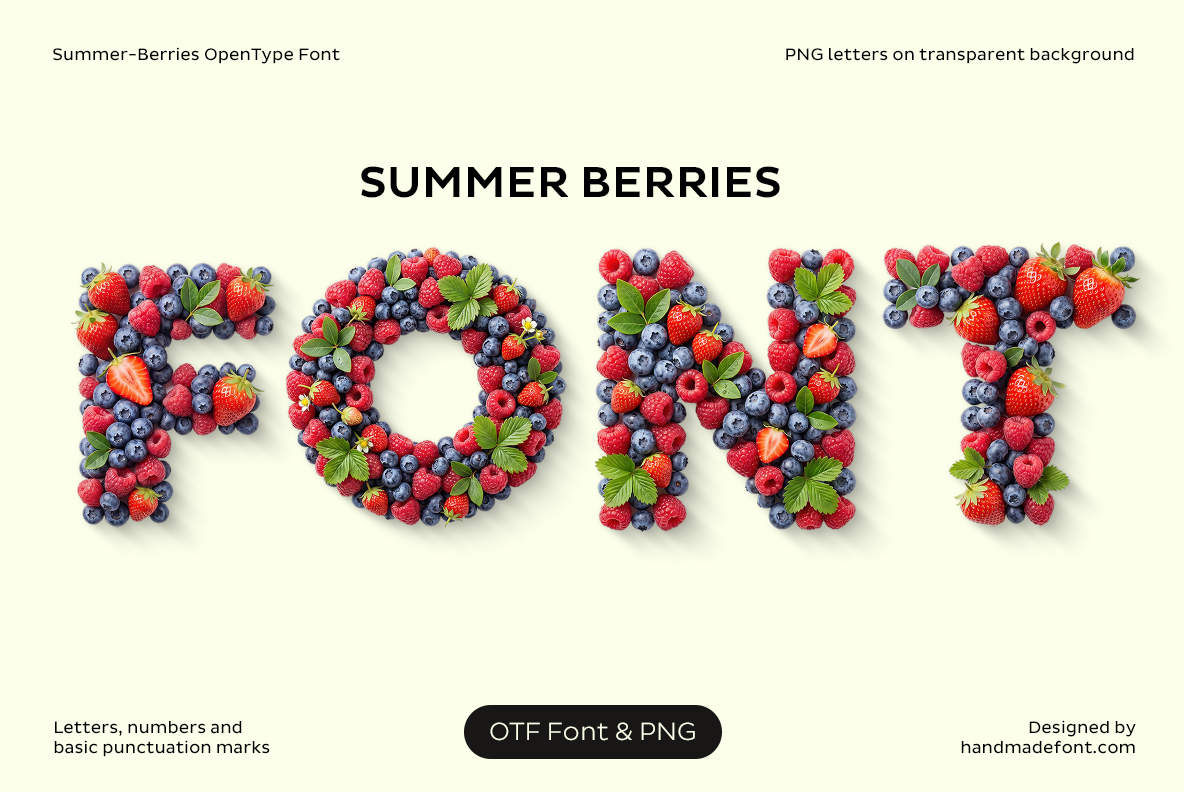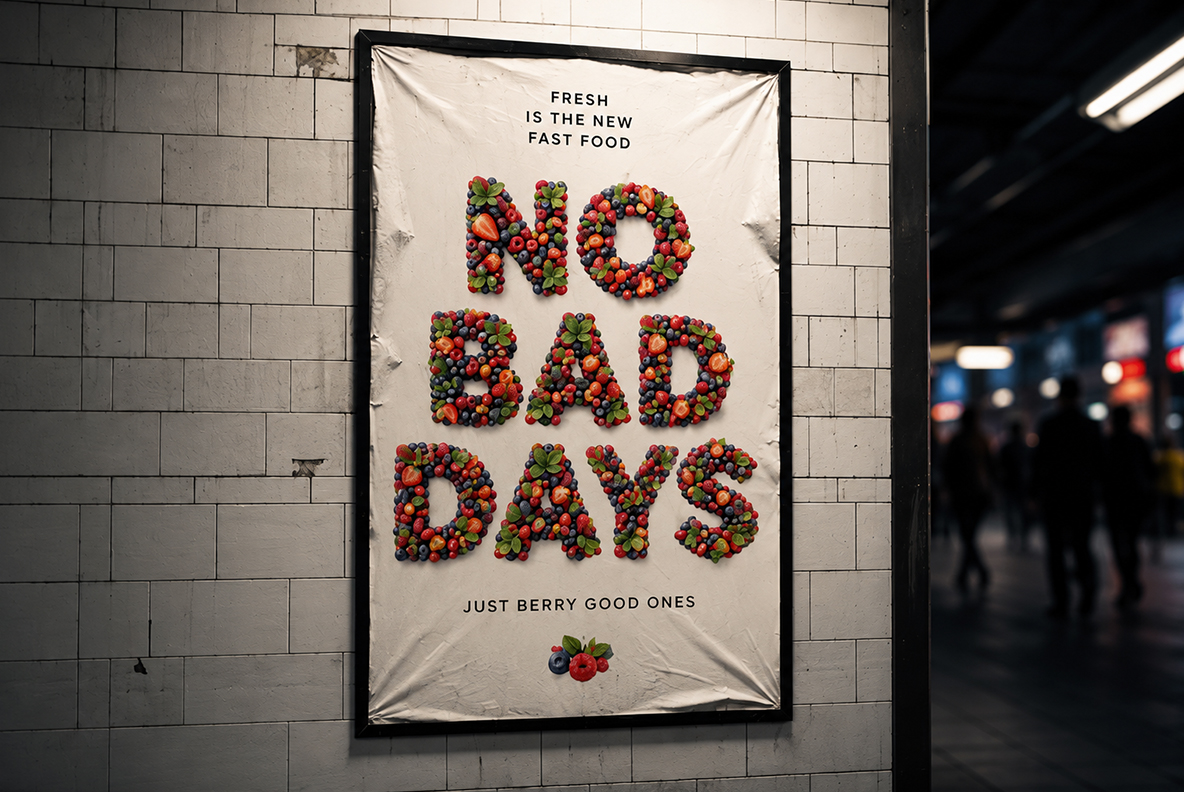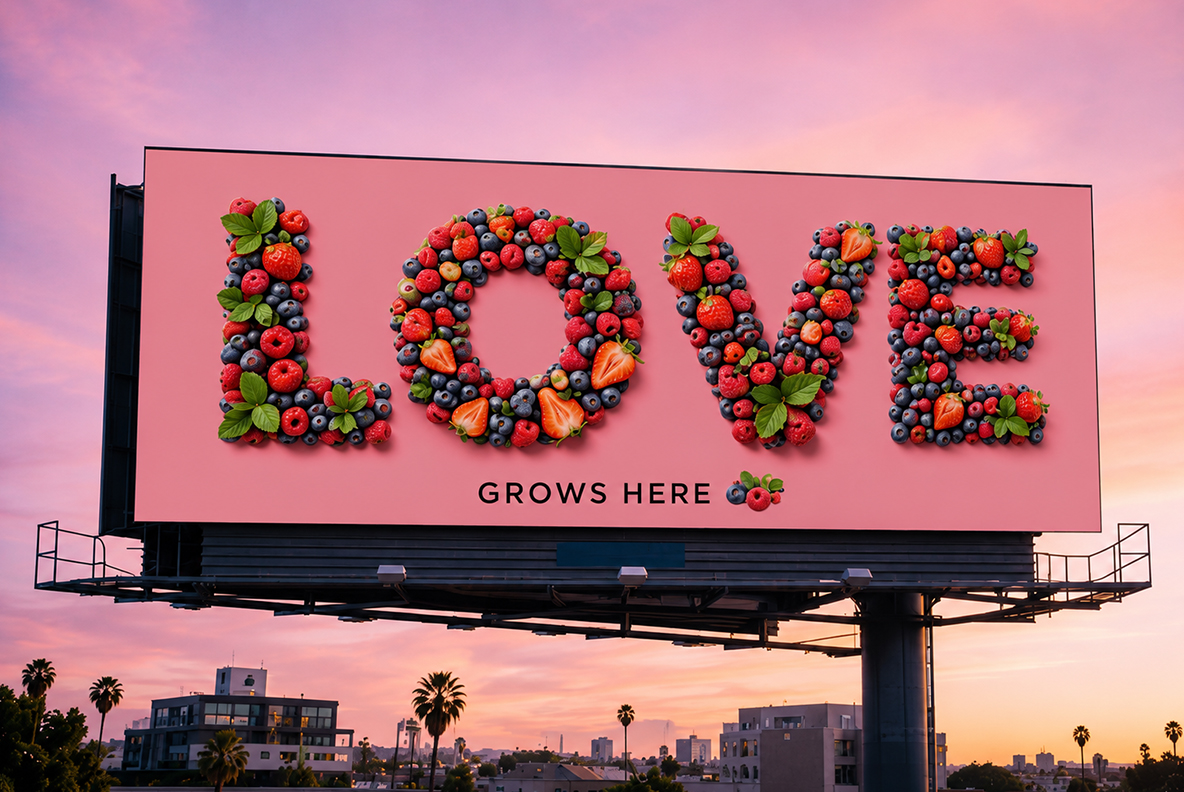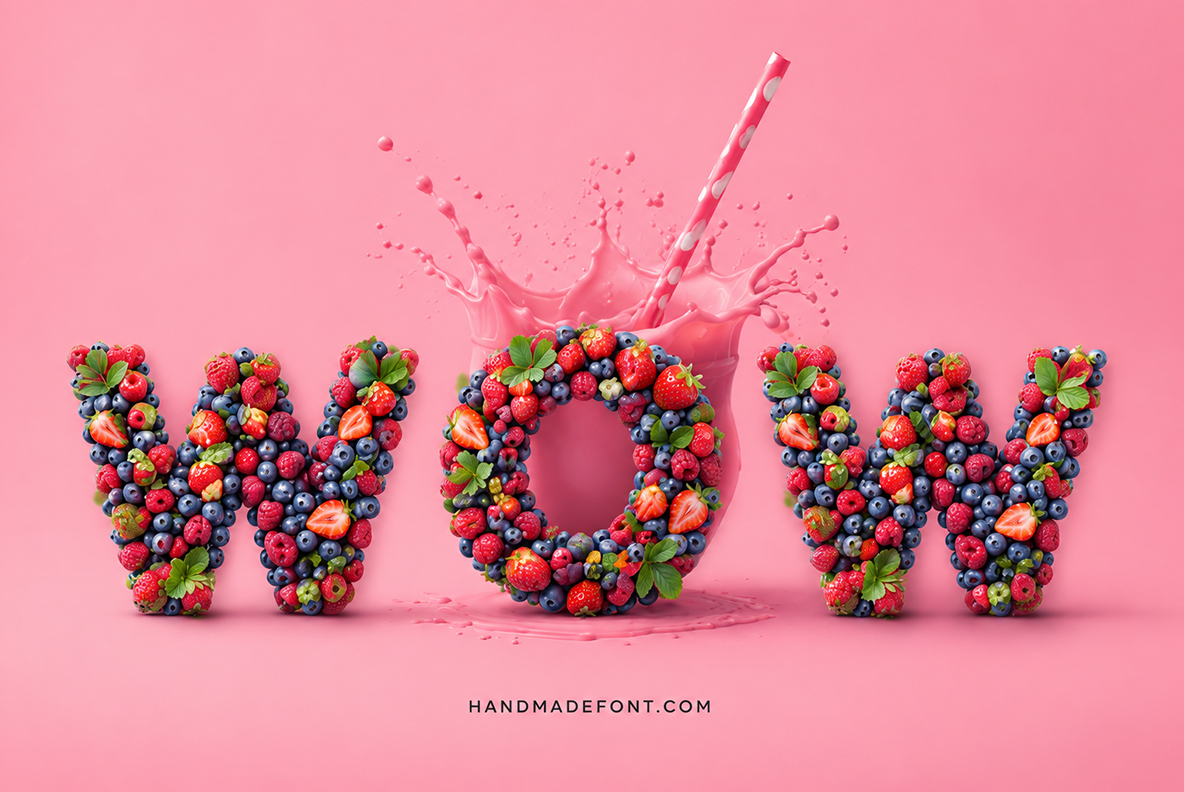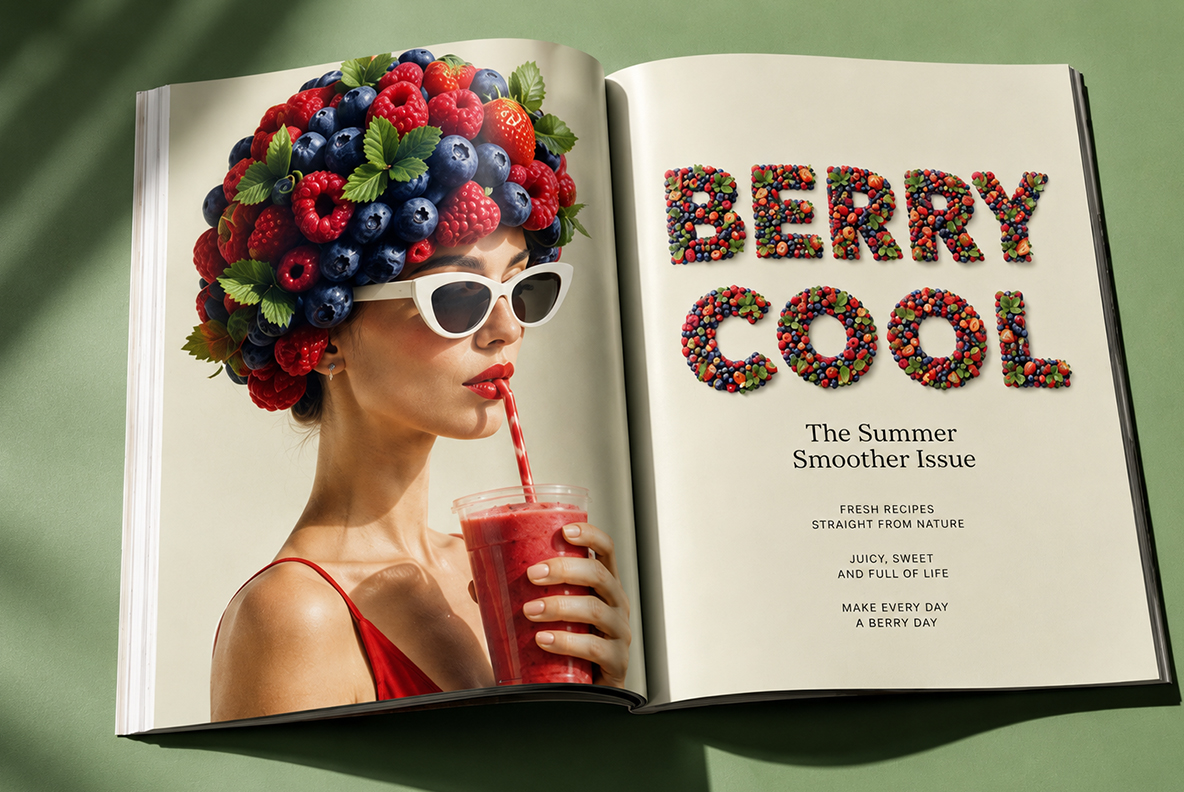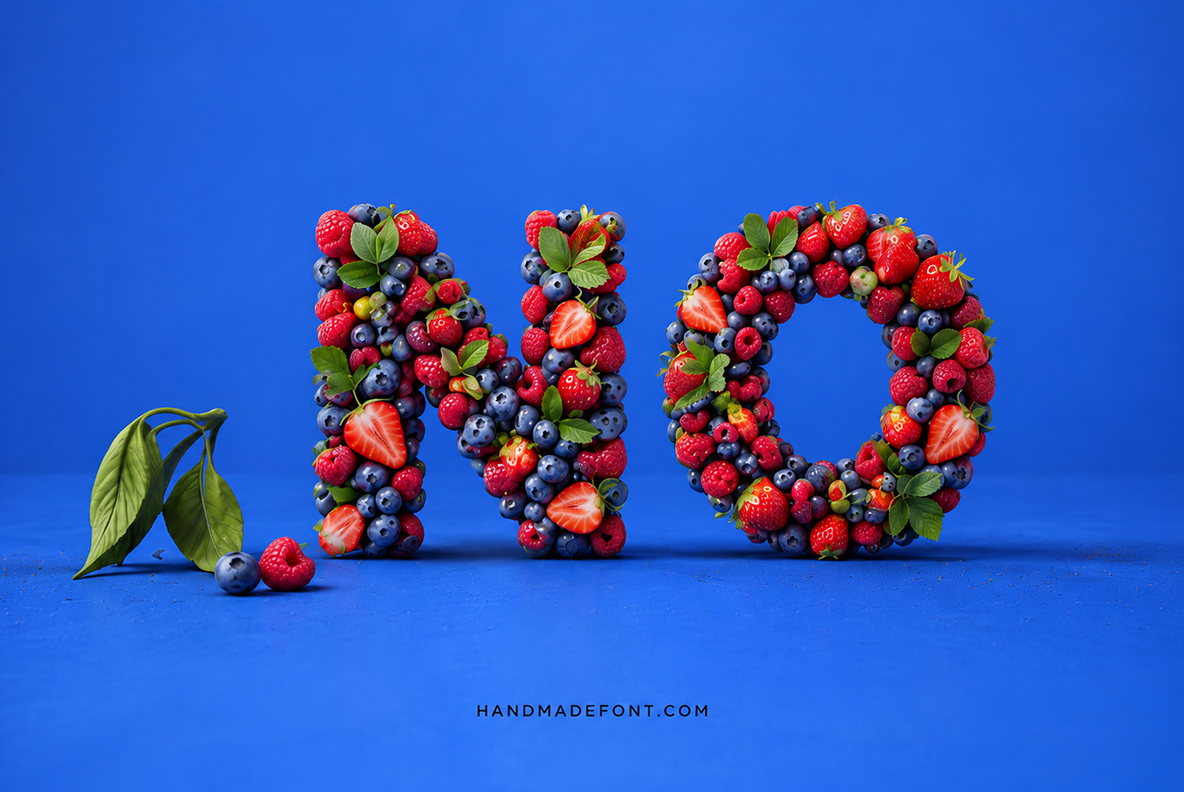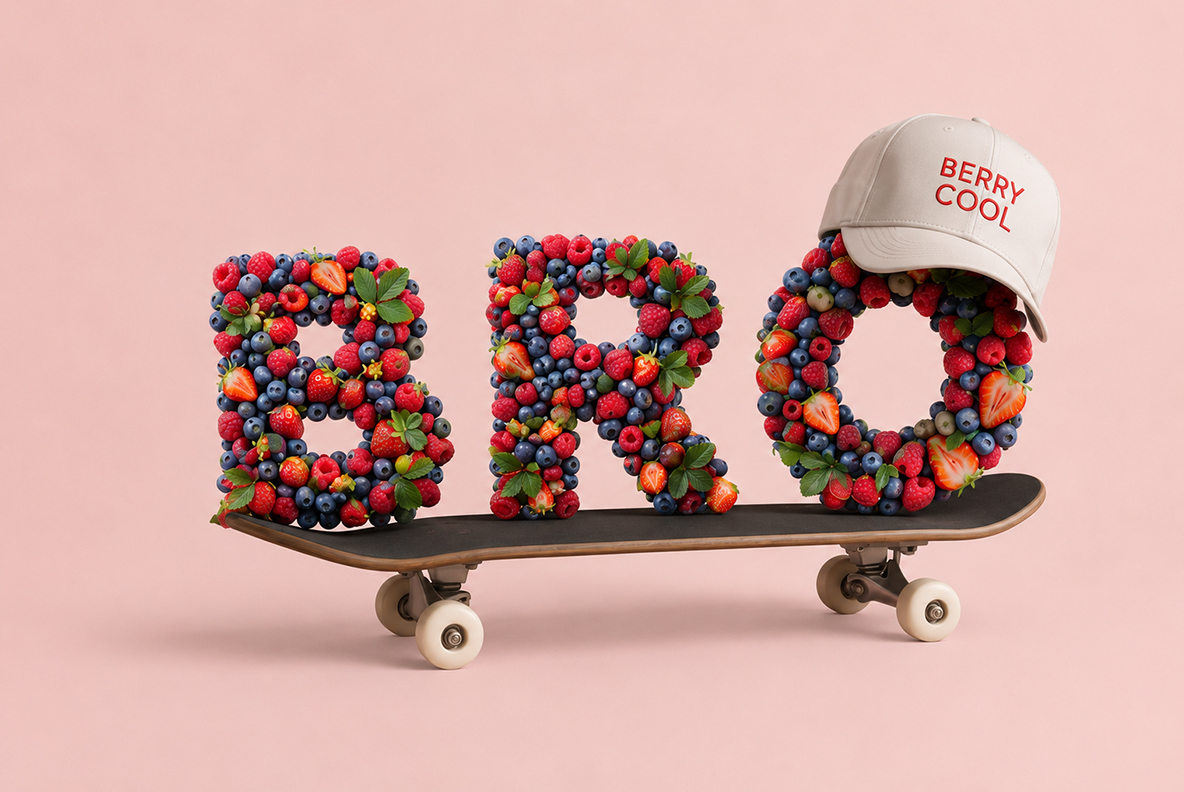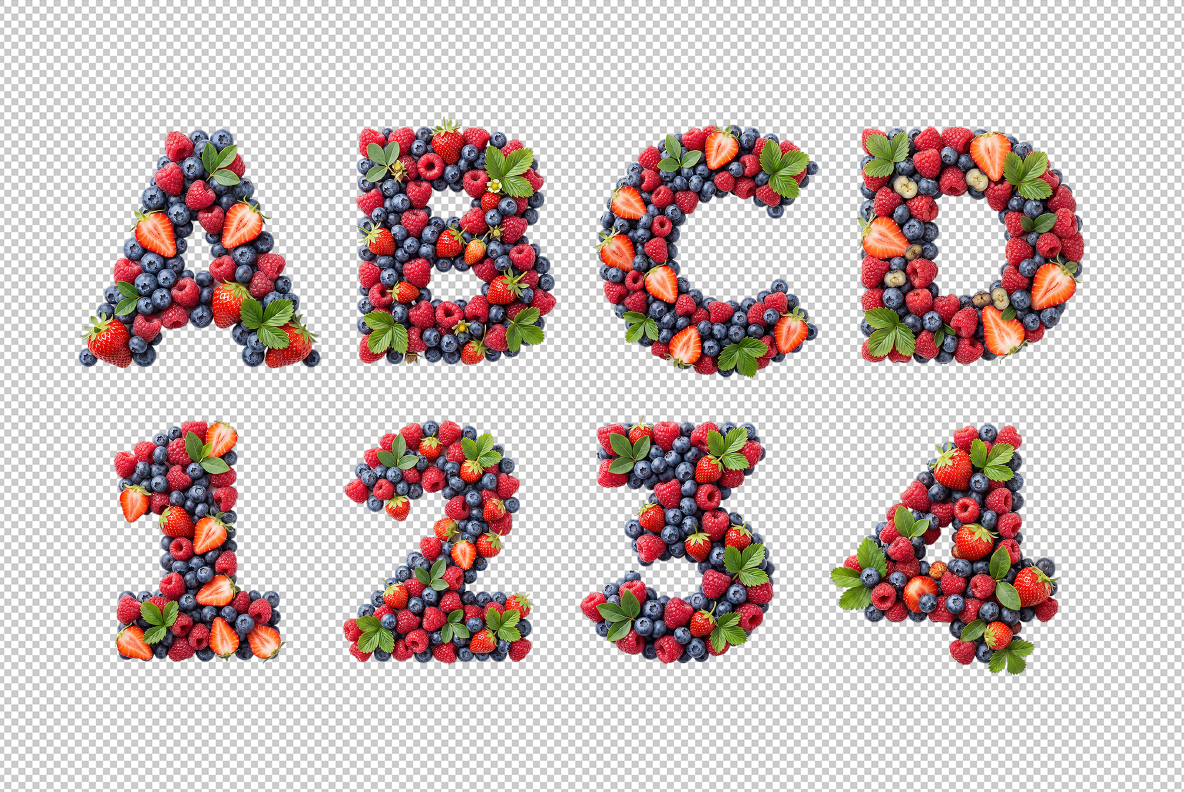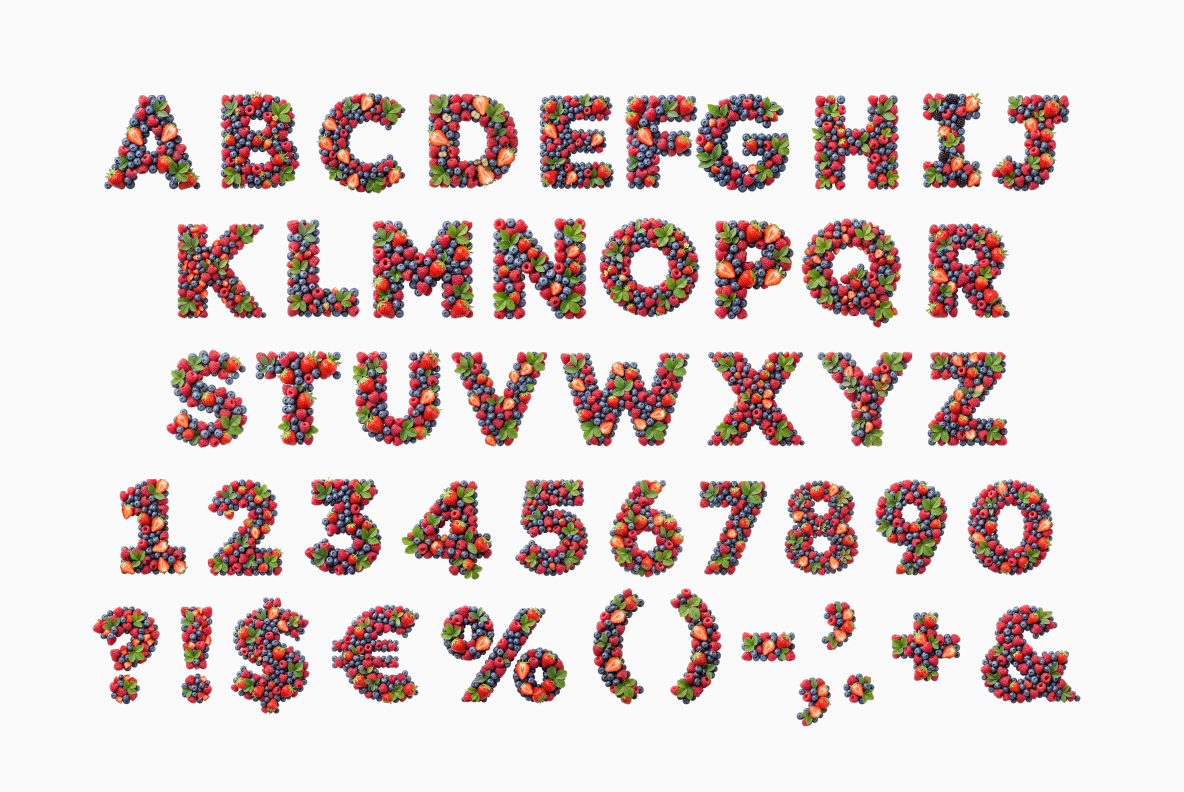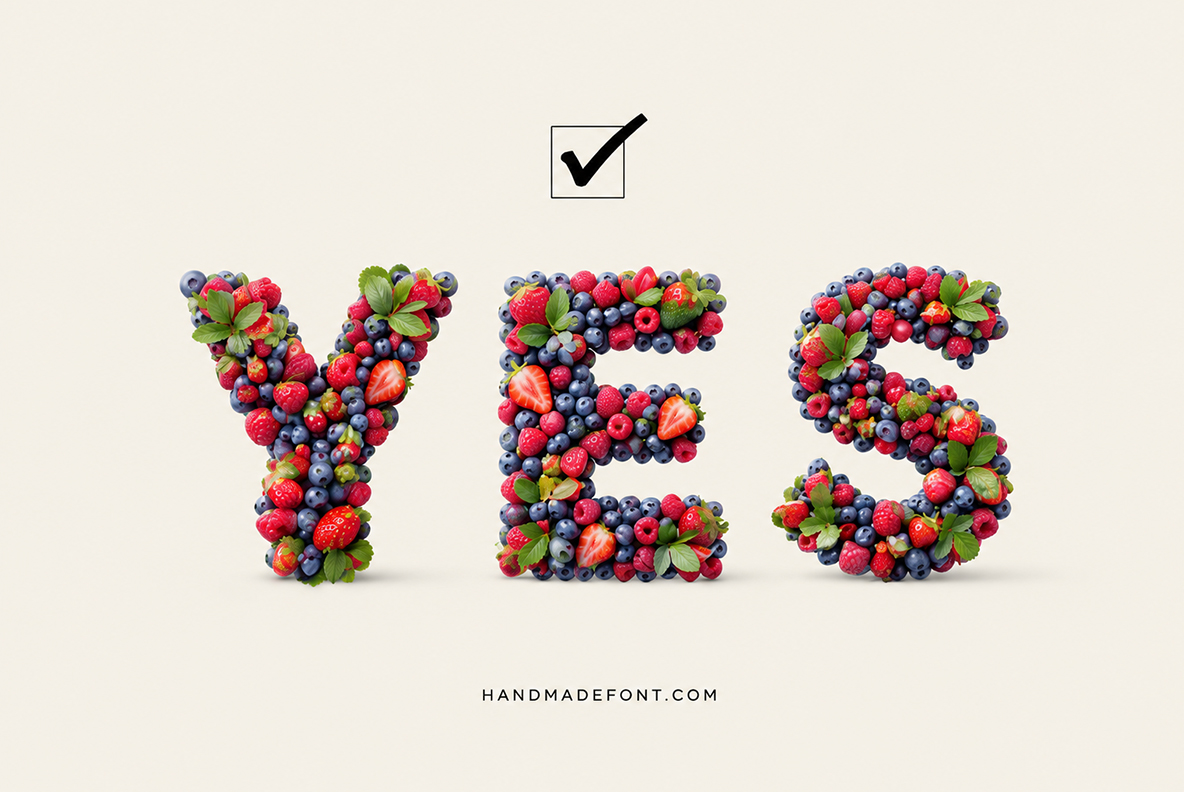
Summer Berries Font. Whole Berries Packed Into Caps
Summer Berries Font builds every capital from whole strawberries, raspberries and blueberries, packed tight enough to keep the letter shape. Green leaves push out at the corners, seeds speckle the strawberry skin, and deep shadows fall between the fruit. It arrives as an OTF you type with, plus separate PNG letters on transparent backgrounds.
Summer Berries Font Packs Whole Fruit Into Every Capital
Summer Berries Font fills each capital to the edge, because whole strawberries, raspberries and blueberries do the building. No fruit gets sliced, so each one keeps its own skin and highlight. The berries sit tightly packed, since a gap would break the letter shape. Even narrow strokes stay dense as well, where three or four berries wedge together. Deep shadows fall between them, therefore a letter reads as a pile rather than a print. Naturally the numbers and punctuation come from the same basket.
Leaves, Seeds and the Odd Split Strawberry
Green strawberry leaves push out at the corners, though never in a tidy pattern. That looseness helps, because a symmetrical leaf would look arranged rather than picked. Tiny seeds speckle the strawberry skin too, while the raspberries stay soft and matte. Then the ampersand and the euro sign arrive built the same way, curve by curve. Above all, the alphabet wants size, since the fruit needs room to read.
Animated preview of the Summer Berries Font mixed berry lettering
Where a Berry Alphabet Actually Sells
Smoothie bars reach for it first, obviously. It carries a farmers market sign well, since one word already looks like the stall. Jam labels and ice cream packaging suit it too, while a poster reading LOVE GROWS HERE does the rest. Merch also works, because a tote saying STAY WILD sells without explanation. Skip small print though, because a blueberry at eight points is just a dot.
Summer Berries Font Against the Single-Fruit Ones
Summer Berries Font title card spelling FONT in mixed berry letters
Complete Summer Berries Font character set with letters numbers and symbols
Summer Berries Font spelling YES next to a checkbox icon
Close-up of strawberries, blueberries, and raspberries used in the Summer Berries Font
Summer Berries Font euro sign and ampersand symbol in mixed berry style
Summer Berries Font spelling BE BERRY HAPPY on an outdoor billboard mockup
Summer Berries Font spelling POW breaking through a cracked wall mockup
Summer Berries Font spelling STAY WILD on a canvas tote bag mockup
Summer Berries Font spelling FONT next to a real strawberry and an ant
Summer Berries Font spelling NO BAD DAYS on a street poster mockup
Summer Berries Font spelling LOVE GROWS HERE on a billboard at sunset
Summer Berries Font spelling WOW next to a splashing pink smoothie
Summer Berries Font spelling BERRY COOL in an open magazine spread
Summer Berries Font spelling NO on a blue background
Summer Berries Font spelling BRO on a skateboard with a cap
Summer Berries Font spelling OOPS on a sage green wall beside a fallen ice cream cone
Close-up of Summer Berries Font letters A B C D and numbers 1 2 3 4